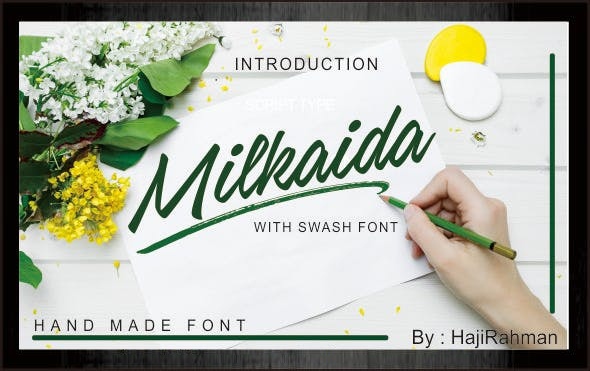
Milkaida Font
Milkaida Font sweetens dairy product packaging, artisanal ice cream branding, children's book illustrations, baby product labels, organic milk campaigns, dessert menu designs, bakery signage, candy wrapper graphics, maternal care branding, family-friendly restaurant materials, nursery wall art, and wholesome food marketing where creamy softness and nurturing warmth create comforting emotional connections.
This delightful typeface generates excitement through its perfect capture of creamy sweetness and nurturing comfort that creates typography with irresistible warmth and maternal appeal. Milkaida Font enchants viewers with its soft, rounded letterforms that evoke the gentle flow of fresh milk and the comforting embrace of maternal care. The font's sophisticated design approach incorporates organic curves and flowing connections that mirror natural processes of nourishment and growth, featuring gentle proportions and smooth transitions that create a sense of safety and comfort. Its distinctive character reflects the purity and wholesomeness associated with natural dairy products and maternal love.
The Milkaida Font family includes multiple nourishing variations such as Regular, Light, Medium, Bold, and Creamy versions, each maintaining the font's characteristic softness while offering different levels of gentle impact. The collection features flowing alternates, smooth ligatures, and rounded elements that enhance its nurturing aesthetic. Additional decorative elements include milk droplets, heart shapes, gentle flourishes, and organic borders that complement the font's wholesome philosophy and reinforce its connection to comfort and care.
Family-oriented brands consistently select Milkaida Font Free Download for projects requiring typography that communicates safety, purity, and nurturing care. This remarkable typeface excels in applications where building trust with parents and families is essential for brand success. The font's comforting qualities make it particularly effective for products and services targeting mothers, children, and families who value natural, wholesome solutions and genuine care.
Whether you're designing dairy product branding, creating children's educational materials, developing maternal health campaigns, or building family-focused service identities, Milkaida Font delivers unmatched nurturing authenticity. Its ability to convey comfort, purity, and maternal care makes it invaluable for brands seeking to connect with families through genuine emotional bonds. The font's gentle presence ensures your designs will inspire trust and communicate the wholesome values that define exceptional family-oriented products and services.